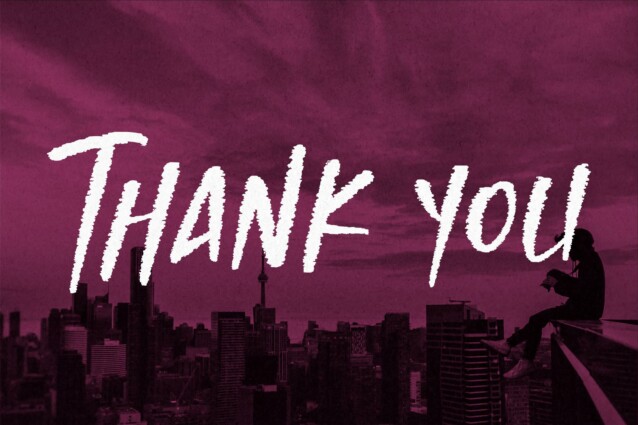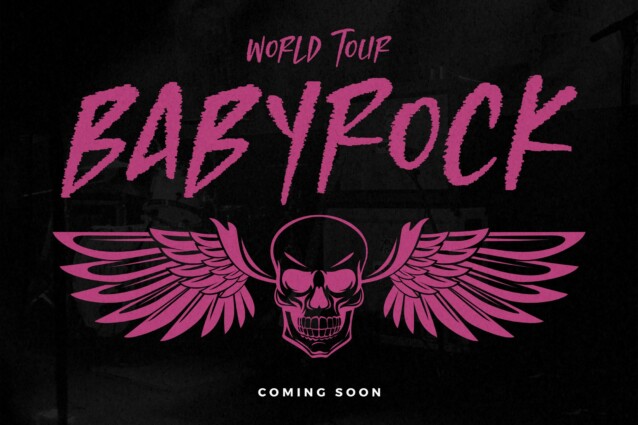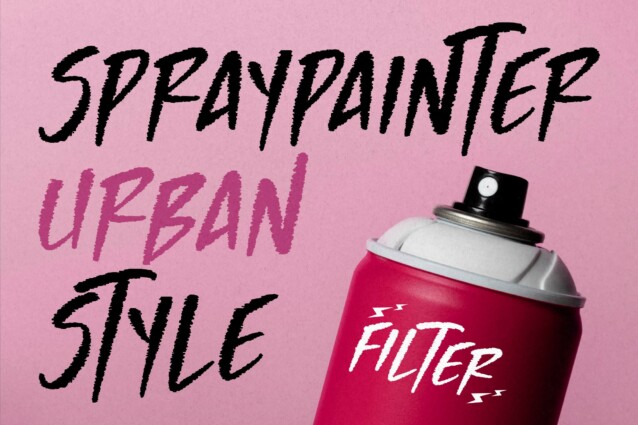
Metalwork Riverside Font
Metalwork Riverside Font is a Urban Handbrush Font, suitable for any projects such as: logos, branding projects, homeware designs, product packaging, mugs, quotes, posters, shopping bags, t-shirts, book covers, name card, invitation cards, greeting cards, label, photography, watermark, special events, and all your other lovely projects that need a beautiful script taste.